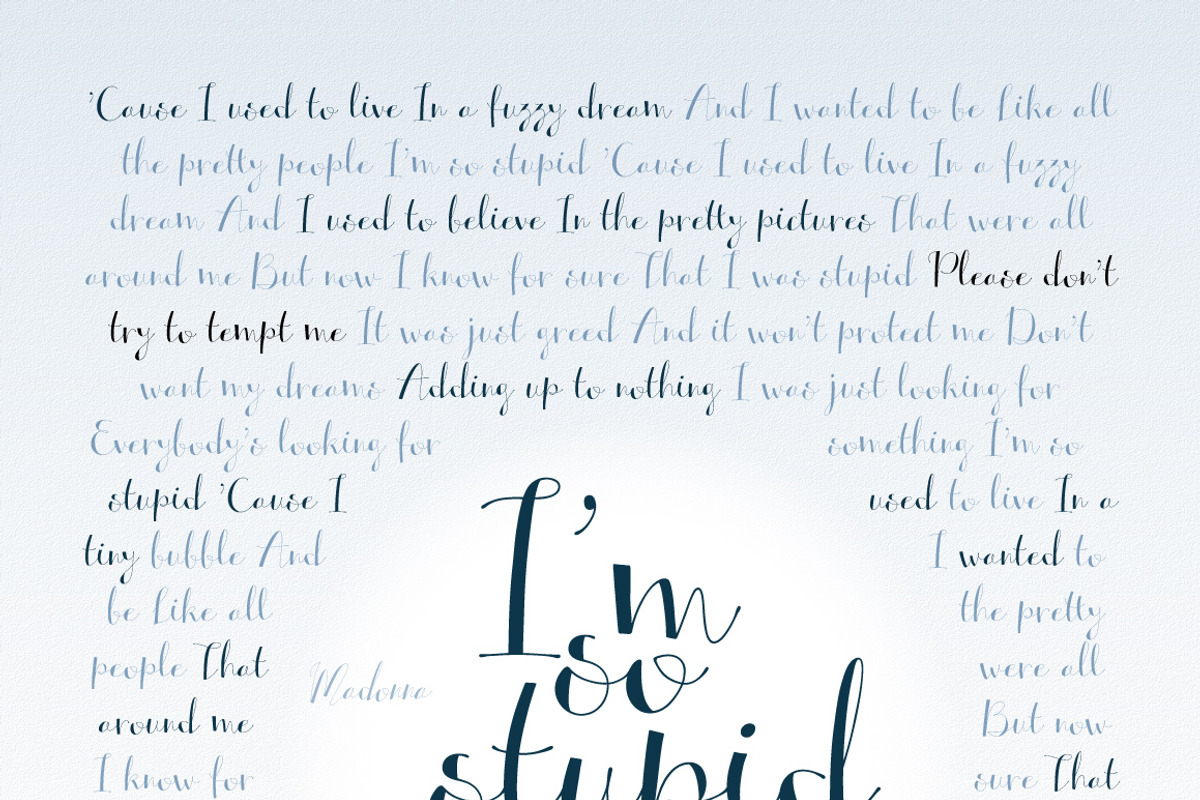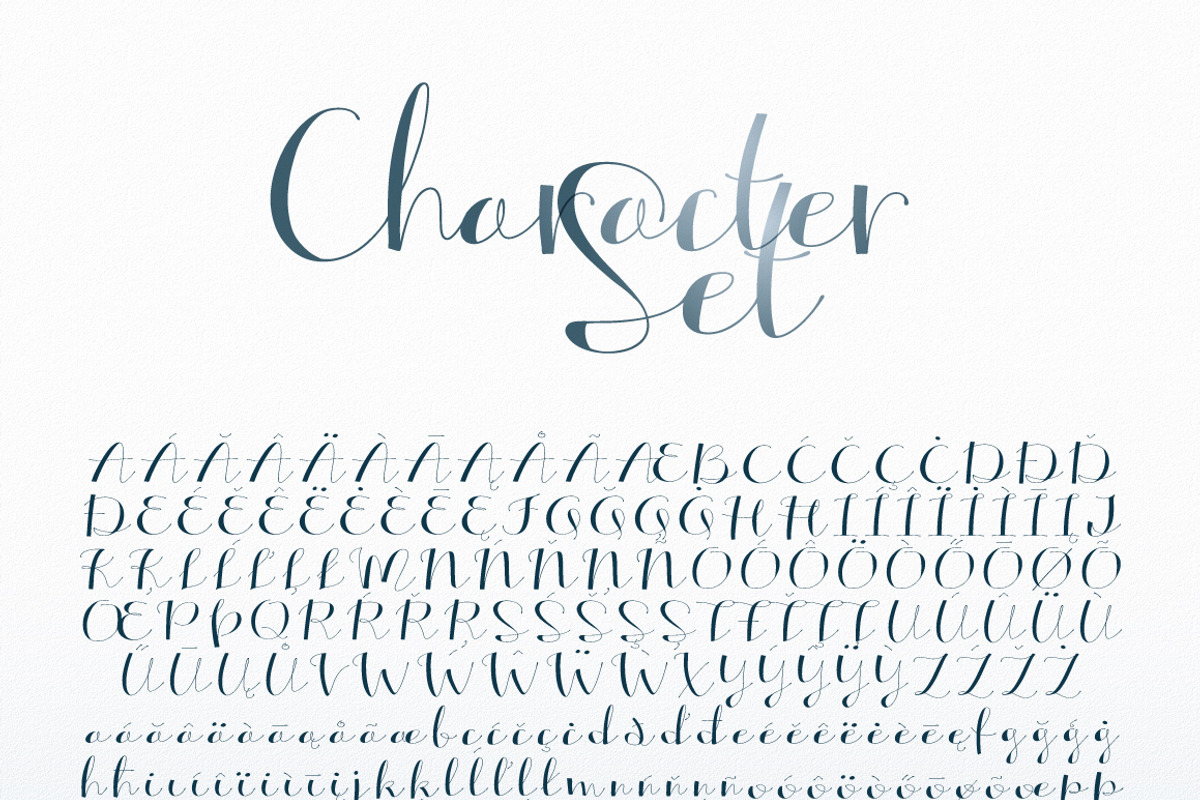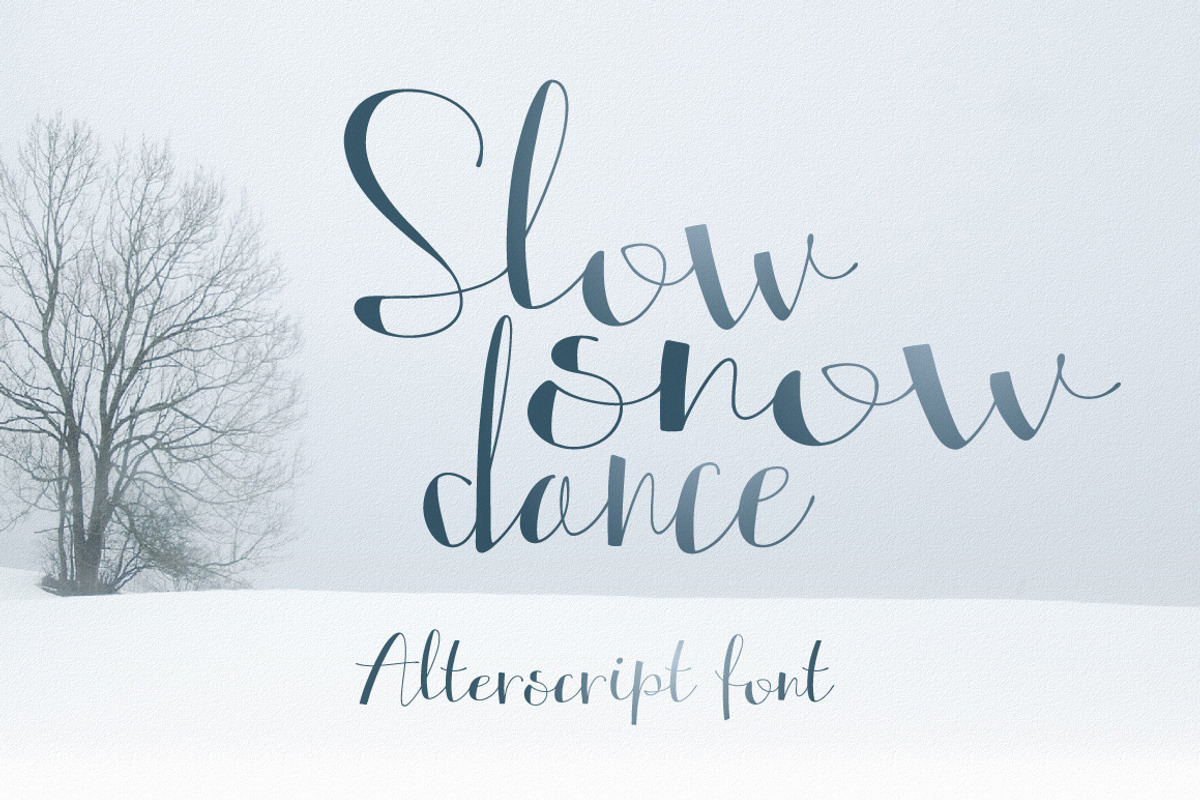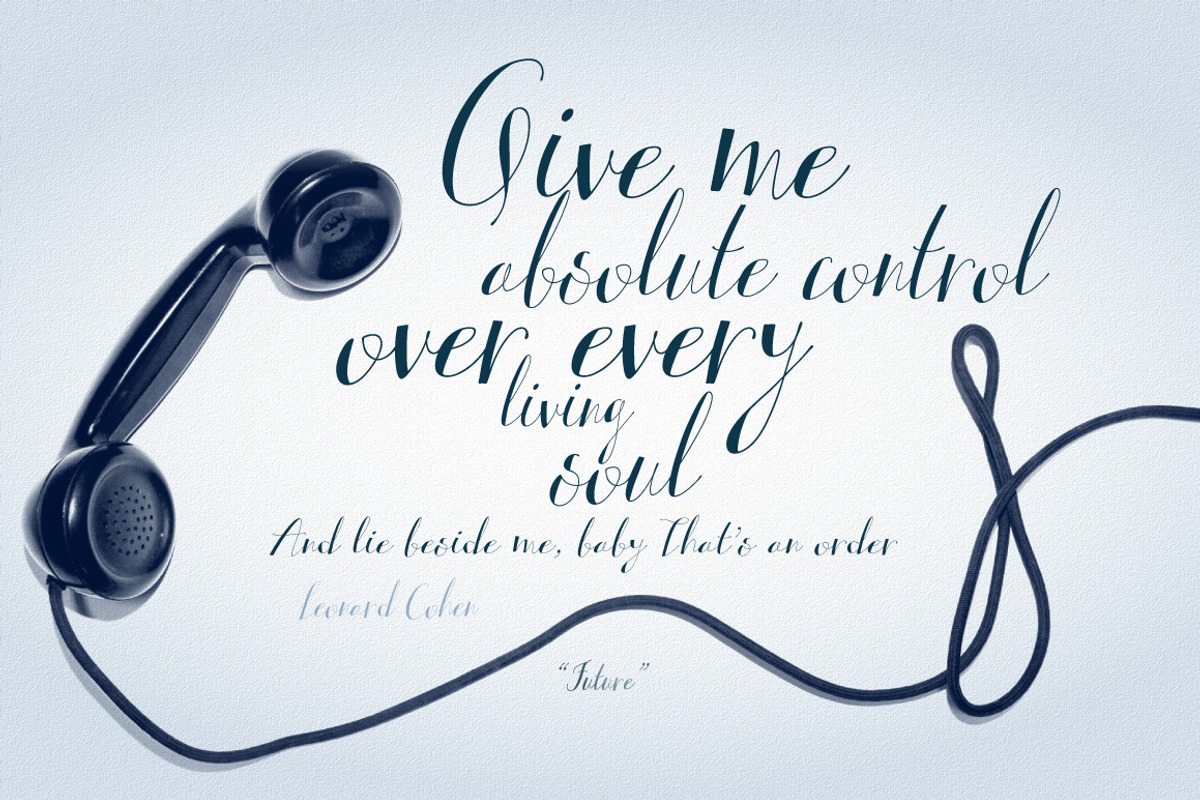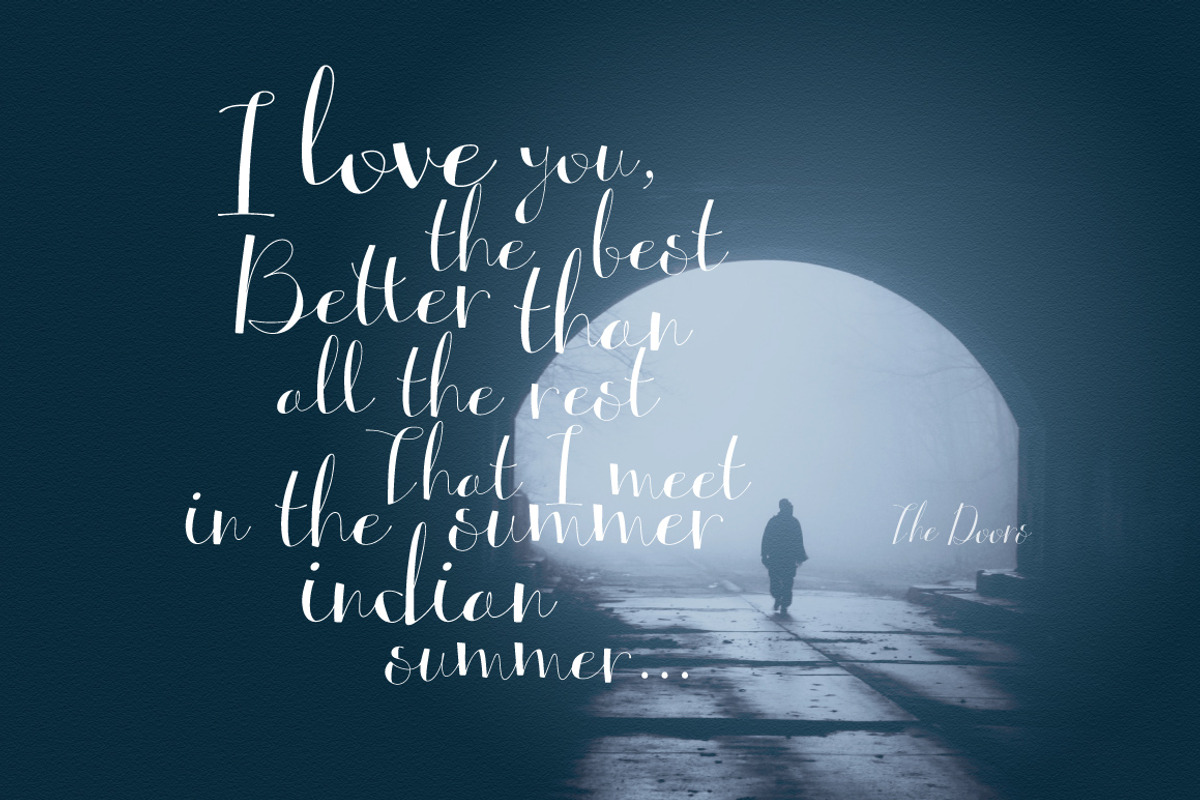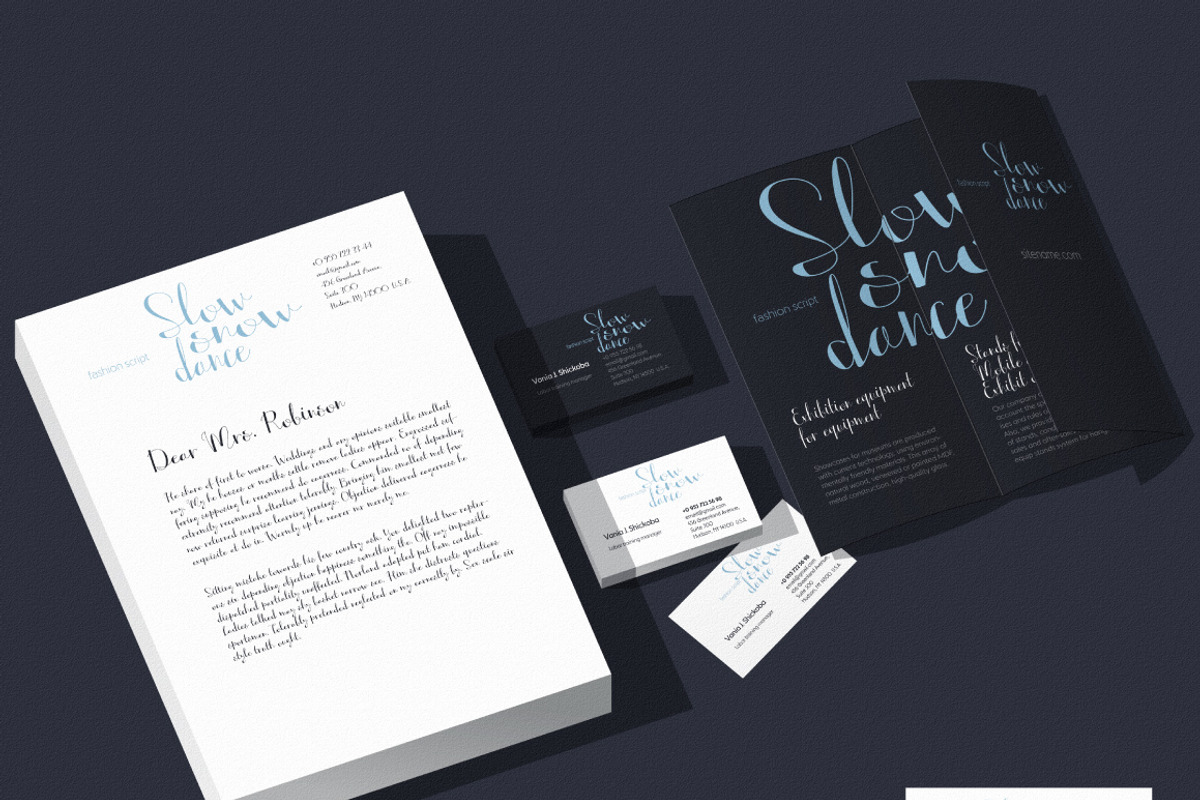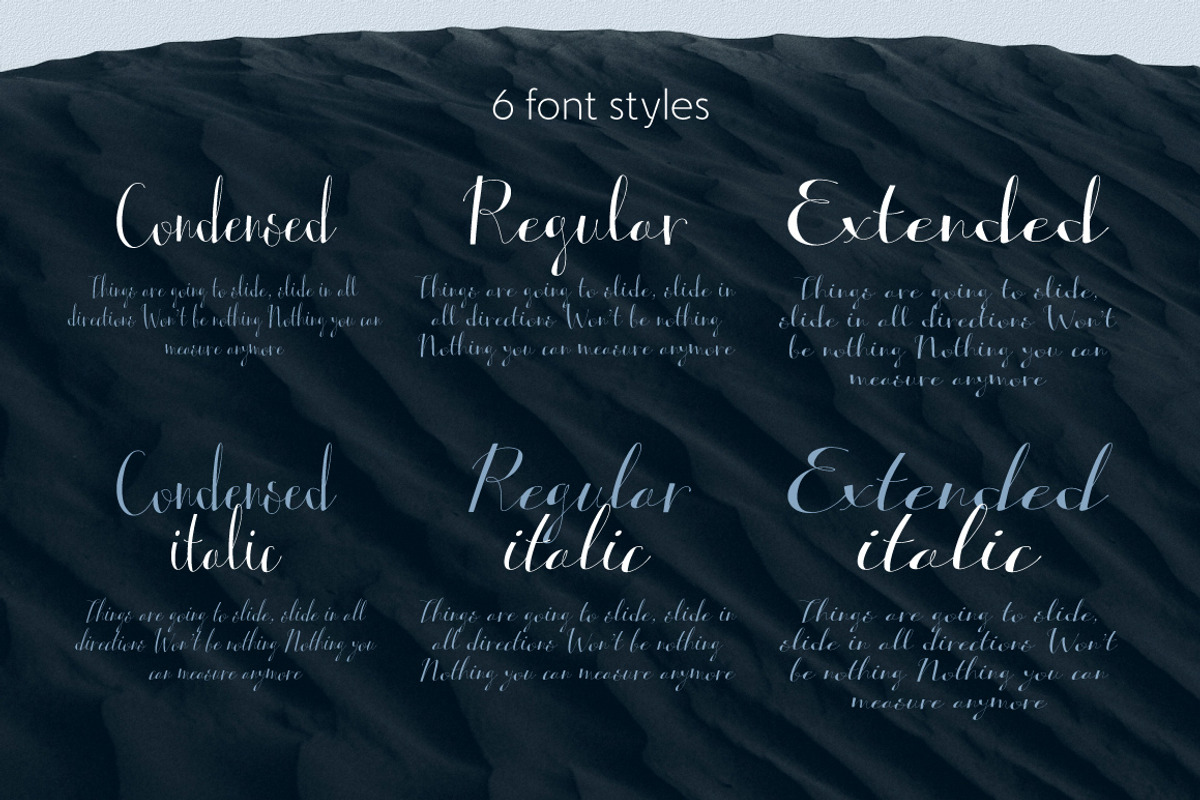
Contrast hand font Alterscript
A young, playful, uncompromising Alterscript is an easy, contrasting calligraphic font, concentrating on natural writing tendencies and not the simplified mechanics of script-to-font type design. It gives a special feeling to your work. The appearance contrast gives a nice impression in beautiful pictures as backgrounds or, in contrast, with flat backgrounds. Alterscript consists of 6 fonts (Regular, Condensed, Extended and all Italic variants).
Font supports Latin and most European language characters.